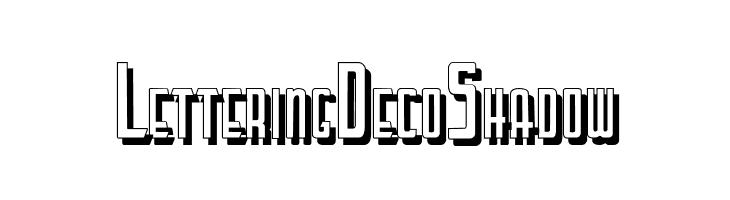
• LetteringDecoShadow schriftart
A bold, decorative font with a three-dimensional shadow effect.
• LetterKids schriftart
A playful, rounded font ideal for children's materials.
• LetterlineDemo schriftart
An elegant and ornate script font with intricate loops and swirls.
• Letterly schriftart
A decorative font with intricate, artistic designs within each character.
• Letterman Demo schriftart
A bold, expressive script font with interconnected, flowing letters.
• Letternisa schriftart
An elegant cursive font with flowing, intricate details and graceful curves.
• Letternisa Slant schriftart
A sophisticated, slanted script font with flowing, interconnected letters and elegant flourishes.
• LettError DataMine Records schriftart
A bold, modern font with high contrast and strong visual impact.
• Letters From Home Medium schriftart
A playful, casual handwritten font with a friendly and informal style.
• Letters in Circles Book Regular schriftart
A playful, hand-drawn font with letters in imperfect circles, perfect for creative projects.